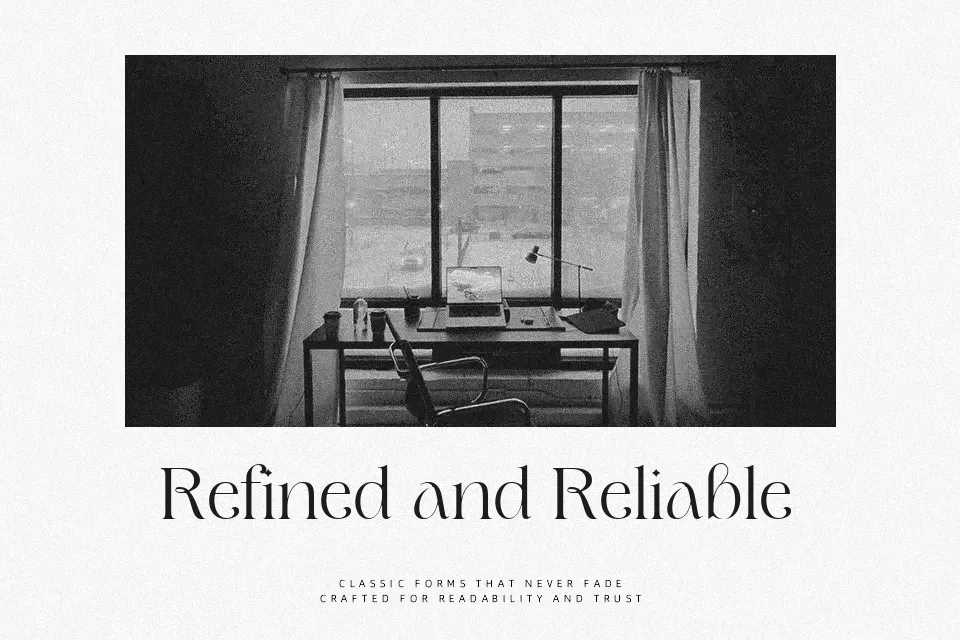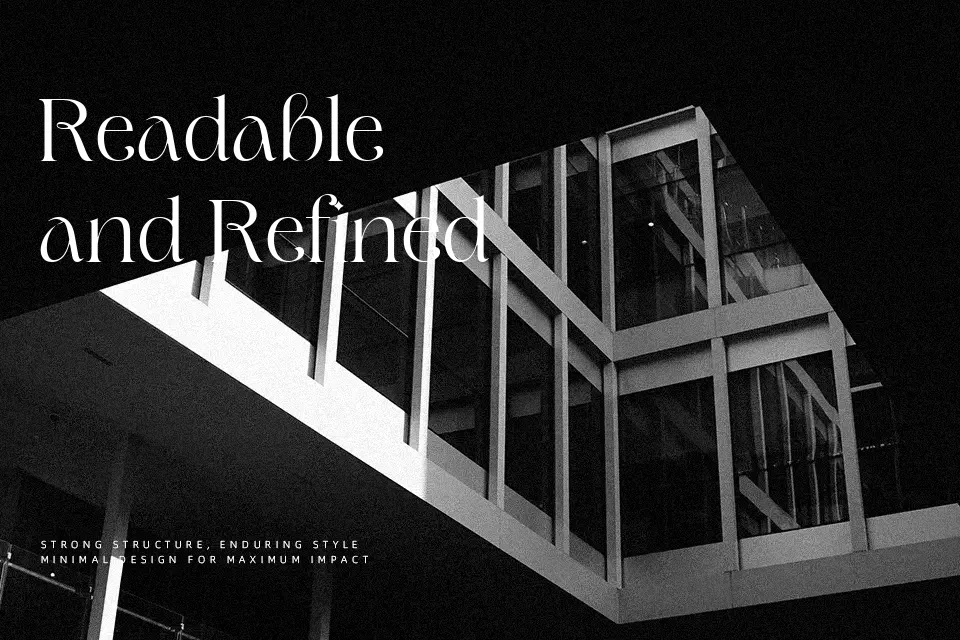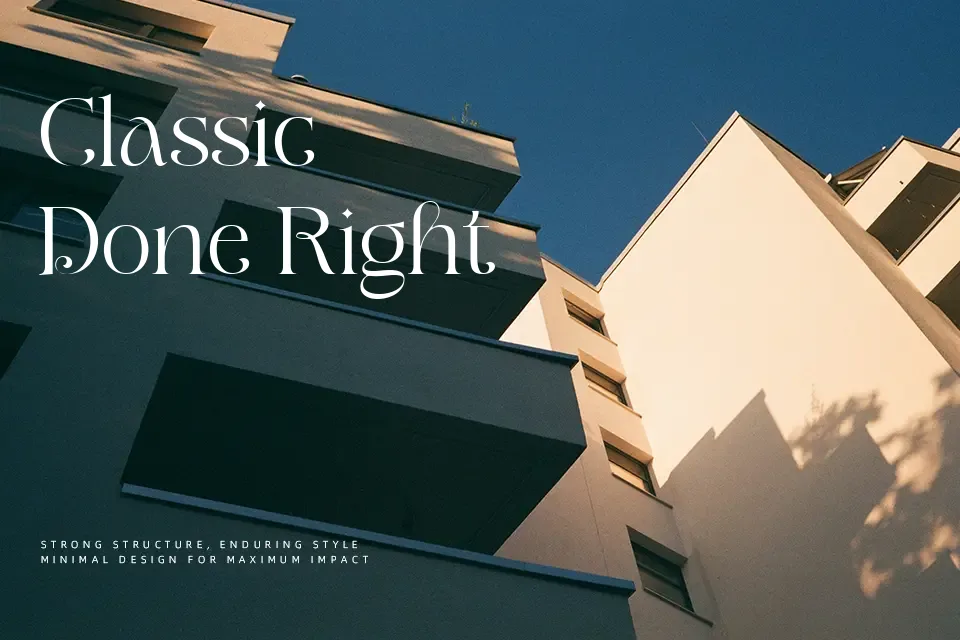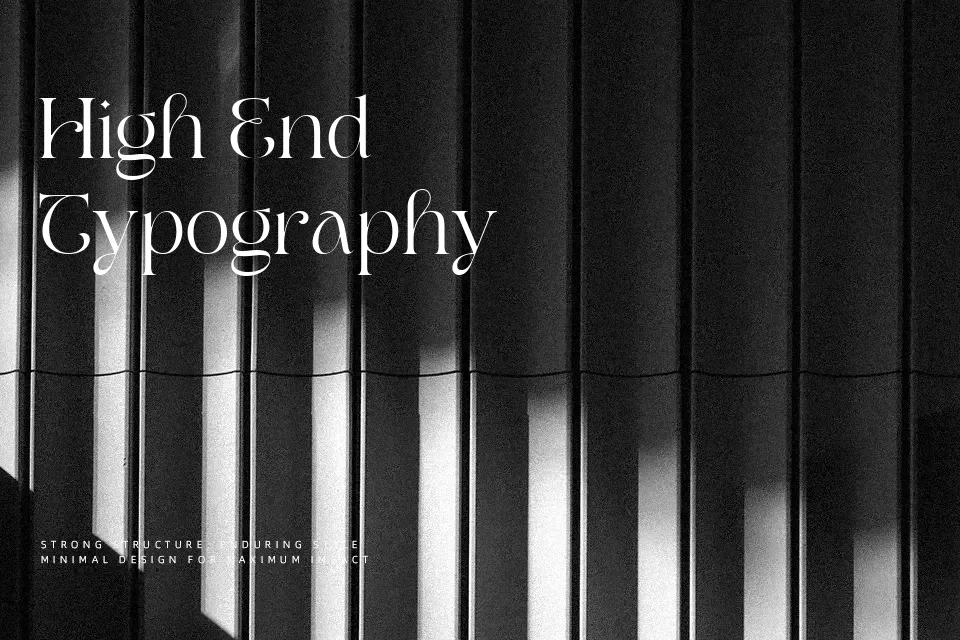
Thinker Historic Font
Thinker Historic Font delivers its strongest impact when deployed at prominent display sizes where subtle transitional details can be appreciated. The typeface features dramatic stroke contrast paired with bracketed serifs and tall uppercase proportions, evoking a traditional typographic heritage. Moderate letter spacing gives each glyph breathing room, ensuring headlines and poster headers maintain clear optical separation. However, the delicate terminal strokes and compact counters make continuous text difficult to parse, rendering the design unsuitable for extended reading or small body copy. In branding and packaging layouts, the letterforms establish an authoritative tone without sacrificing structural discipline.
Best For: vintage packaging design, editorial magazine headlines, luxury product branding
Not Ideal For: long paragraph text, small interface labels, dense spreadsheet data
Perfect for branding, headline, and packaging, with a classic and display style.